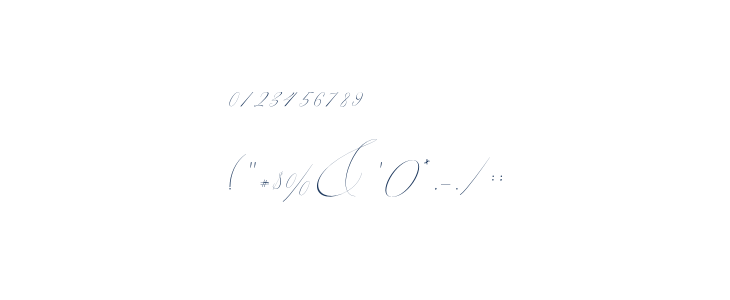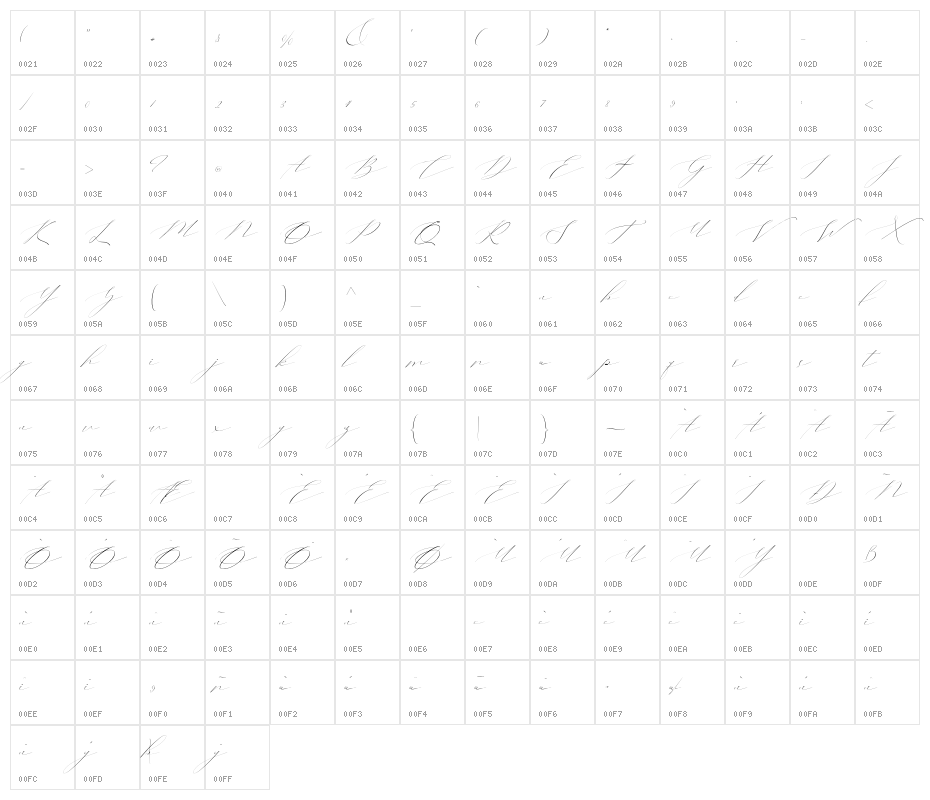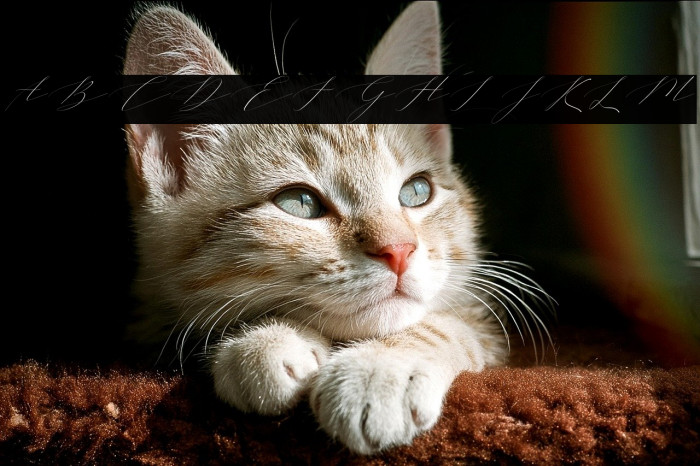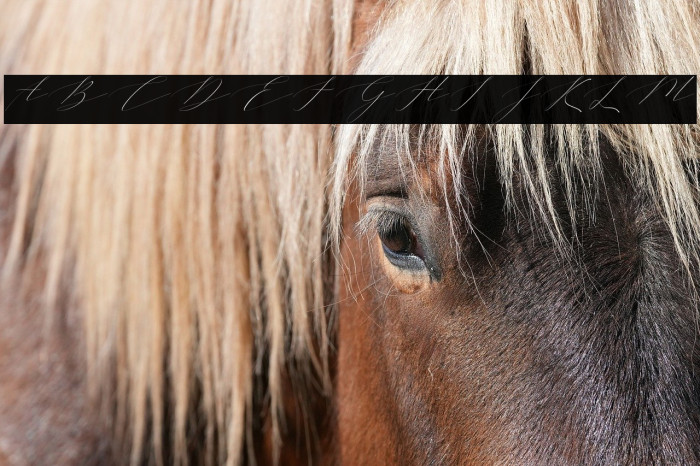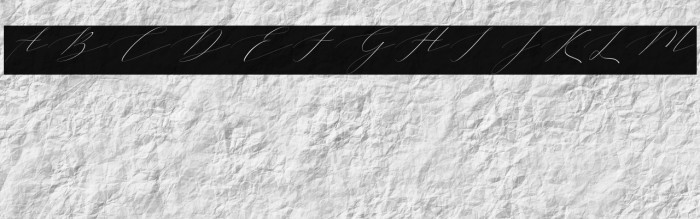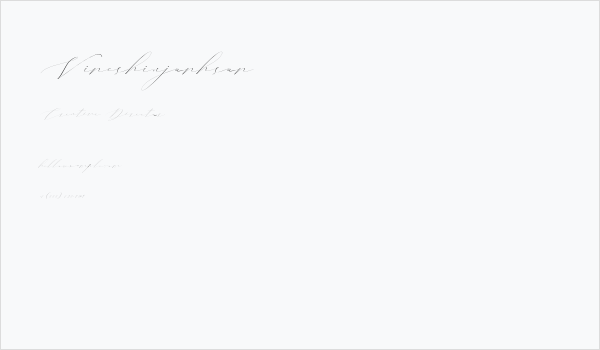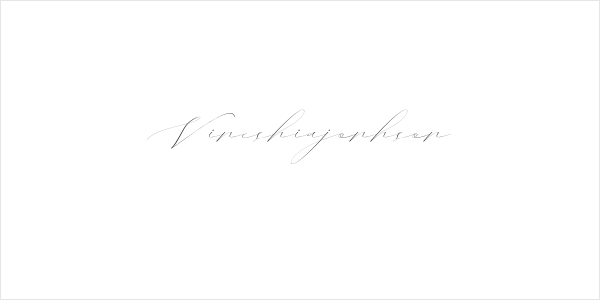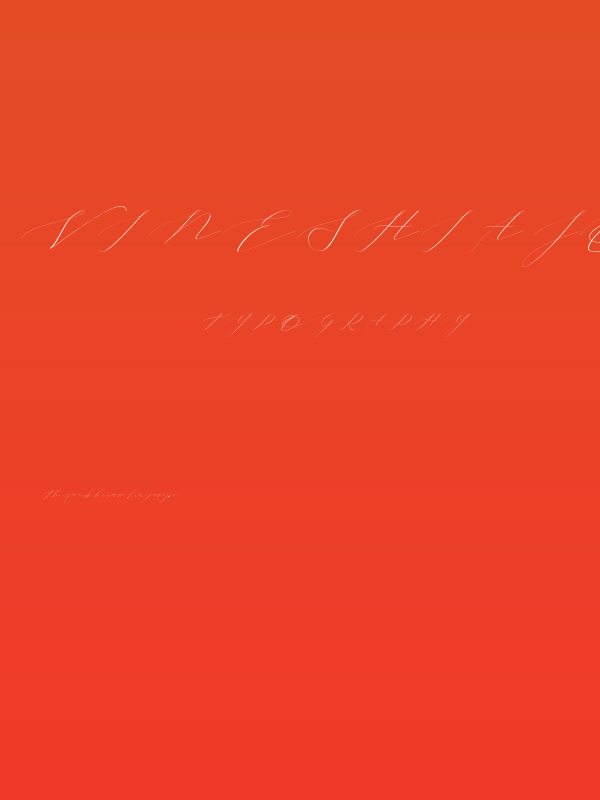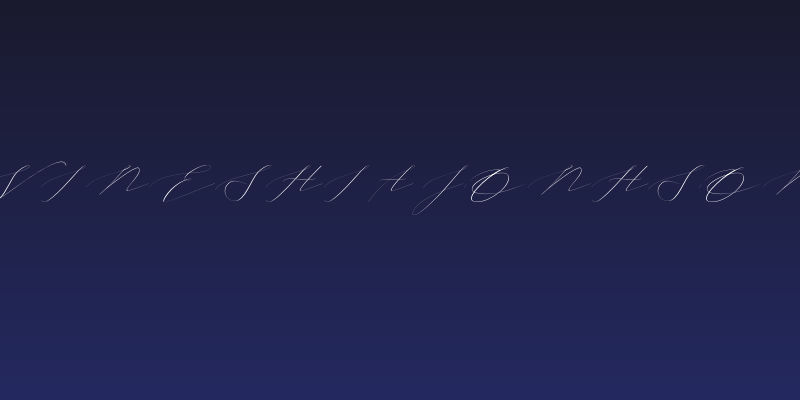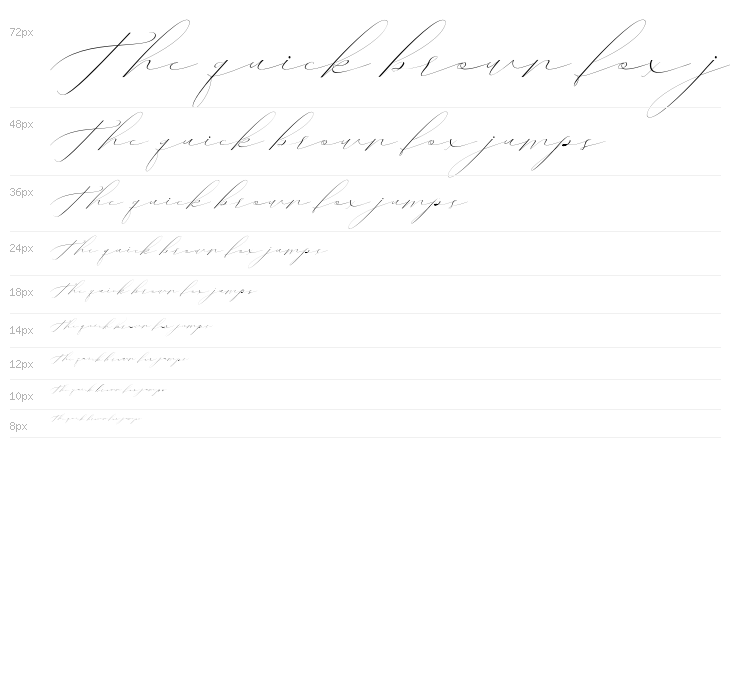
Vineshiajonhson Font
Vineshiajonhson Description
This elegant script font features flowing, interconnected letters with a refined and sophisticated appearance. The characters are delicately crafted with thin, graceful strokes that convey a sense of elegance and fluidity. The uppercase letters are slightly more ornate, while the lowercase letters maintain a consistent, smooth flow. The numerals and special characters complement the overall style, maintaining the same delicate and airy feel. This font is perfect for projects that require a touch of class and elegance, such as wedding invitations, formal event programs, and high-end branding.
| Use Case | Invitations, Branding, Decorative |
| Proposed Projects | Ideal for wedding invitations, formal event programs, and luxury branding. |